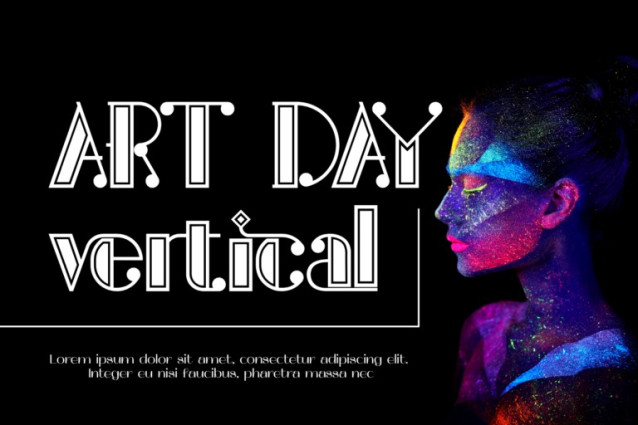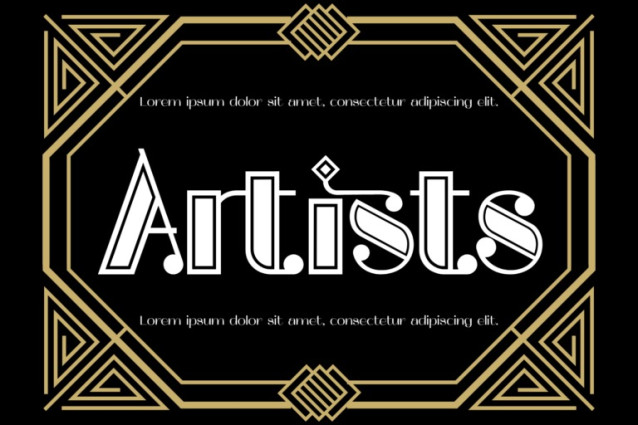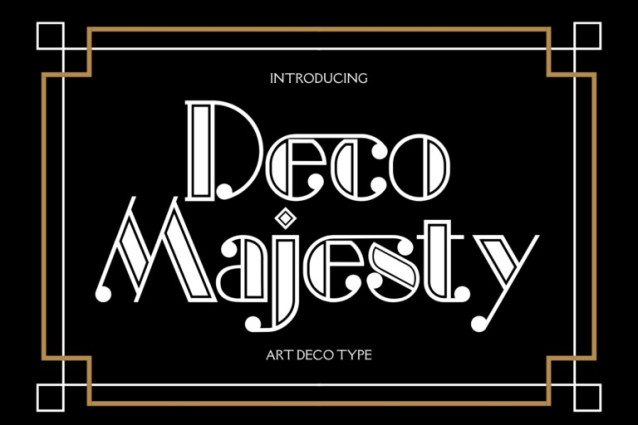
Deco Majesty Font
Deco Majesty Font is a luxurious Art Deco-inspired display typeface that blends geometric structure with refined elegance. Featuring bold vertical contrast, symmetrical terminals, and ornamental ball-end details, this font evokes a timeless sophistication reminiscent of 1920s architecture, classic cinema, and vintage fashion. Each letterform is carefully crafted to balance decorative flair with readability, making it perfect for high-end branding, editorial headlines, luxury packaging, or vintage-themed designs.
Designed for headlines, logos, posters, book covers, fashion labels, and wedding stationery